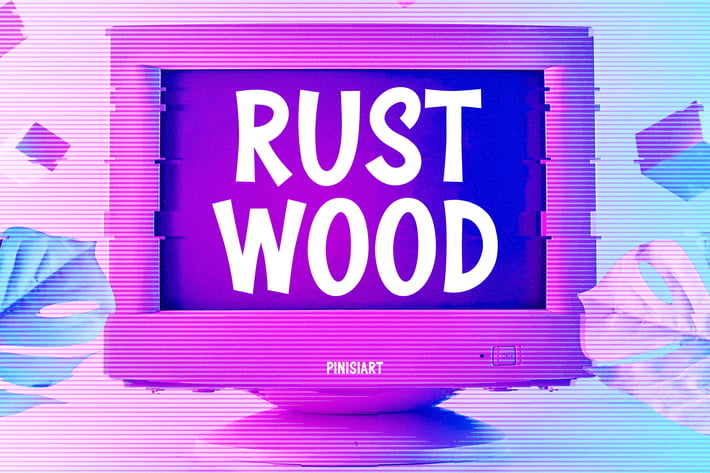
Retro Font - Rustwood
Rustwood is a bold, retro-inspired display font that brings a nostalgic yet stylish vibe to any design. With its strong, geometric letterforms and vintage aesthetic, Rustwood channels the charm and energy of mid-century modern typography. Its dynamic curves and sharp edges make it an ideal choice for designs that aim to capture a sense of fun, creativity, and retro flair.
Market Applications
Branding for Retro & Vintage Businesses
Perfect for businesses with a vintage, nostalgic theme such as retro cafes, record stores, or clothing brands. Rustwood’s distinctive style adds personality and draws attention to logos, packaging, and marketing materials.
Event Posters & Retro Campaigns
Ideal for promoting events like retro music festivals, throwback parties, or 70s-themed gatherings. The font’s bold and playful design helps create eye-catching promotional posters and flyers.
Music & Entertainment Industry
Great for album covers, band logos, and promotional materials for music genres like rock, jazz, or soul. Rustwood gives an authentic vintage touch that resonates with fans of classic sounds and aesthetics.
Product Labels & Packaging for Nostalgic Goods
Perfect for packaging vintage-inspired products or collectibles. Whether it’s for old-school soda cans, retro toys, or nostalgic home goods, Rustwood makes an instant connection with the past while staying relevant in modern designs.
Advertising & Social Media
Rustwood shines in retro-style advertisements or social media graphics. It’s ideal for campaigns that embrace vintage vibes or retro trends, adding character and flair to digital platforms.